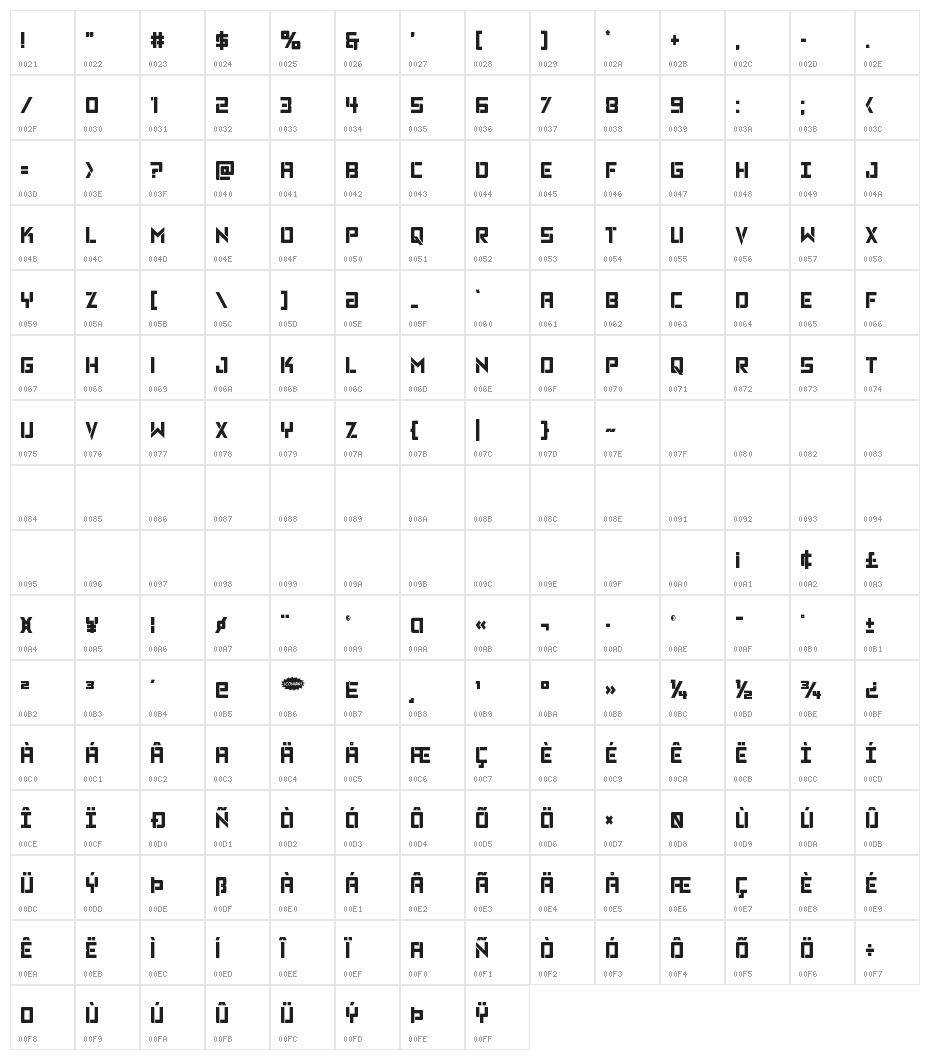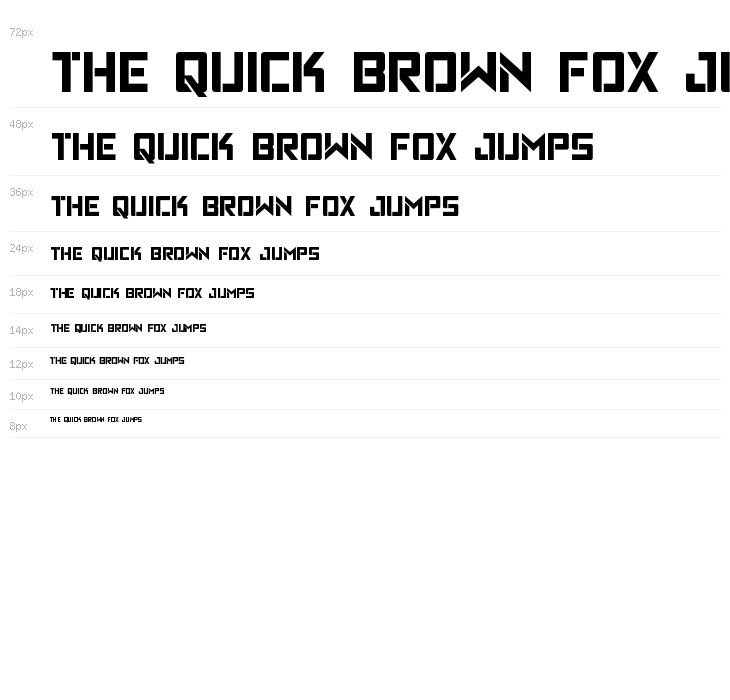
Viking Squad Condensed Font
Viking Squad Condensed Description
This font features a bold, geometric design with sharp angles and a condensed structure. The uppercase letters are distinct with a futuristic and industrial feel, characterized by their blocky and angular forms. The lowercase letters maintain the same geometric style, offering a cohesive look across different cases. Numbers are equally bold and angular, ensuring readability while maintaining the font's unique style. Special characters are designed to match the overall aesthetic, providing a consistent visual experience. The font's condensed width allows for efficient use of space, making it suitable for impactful headlines and titles.
| Proposed Projects | Ideal for use in video game titles, tech branding, posters, and any project requiring a modern, edgy look. |